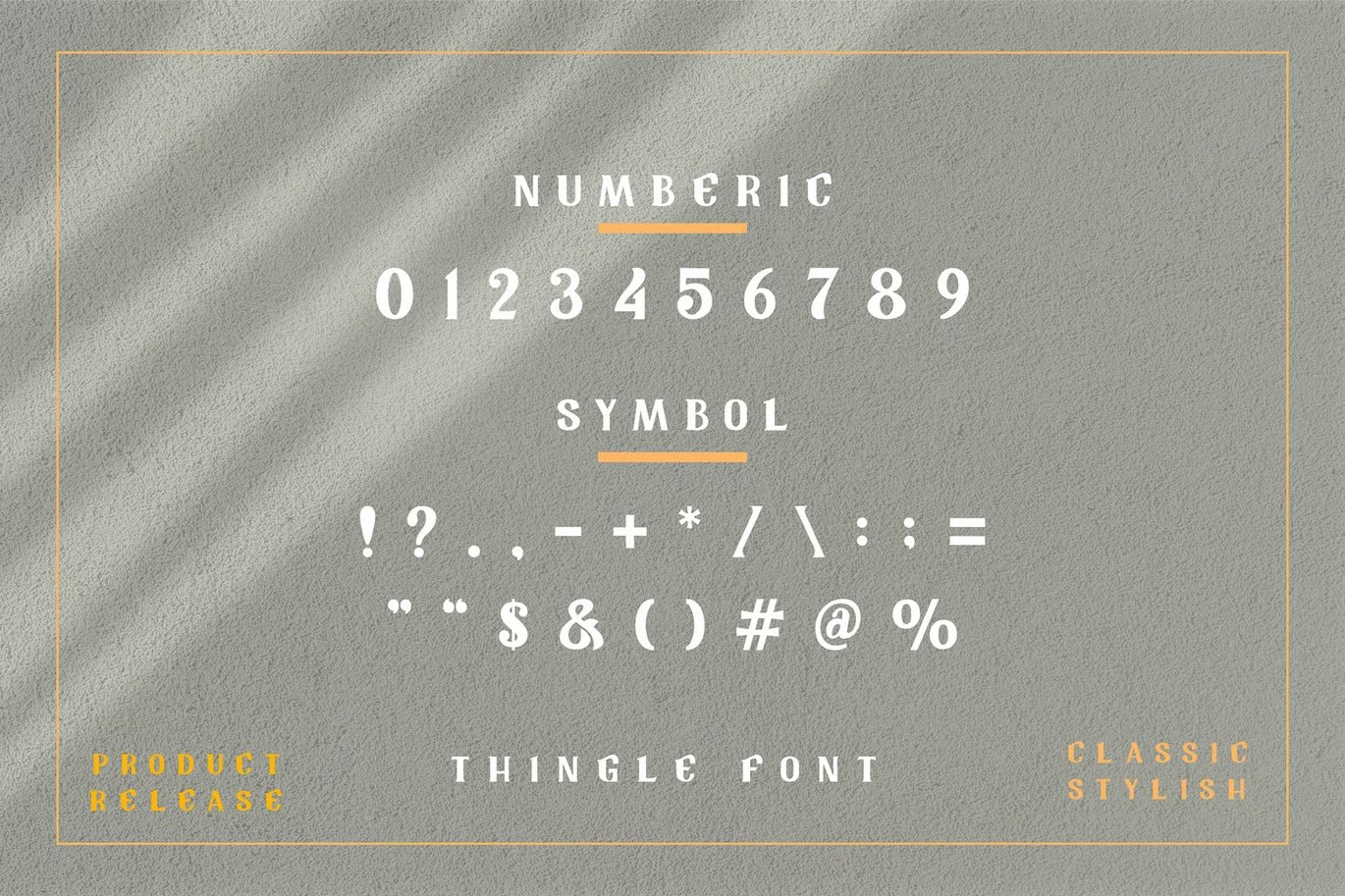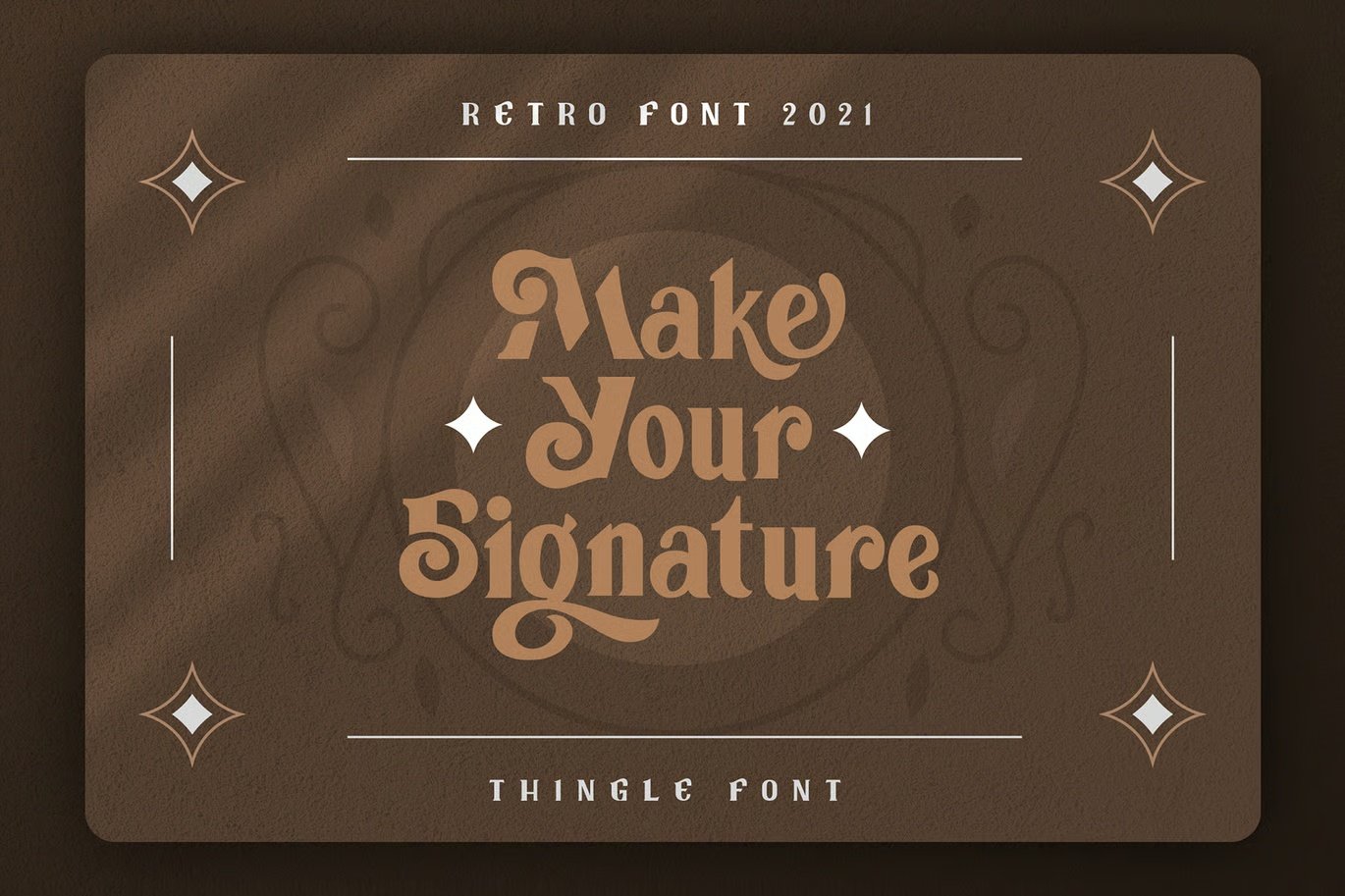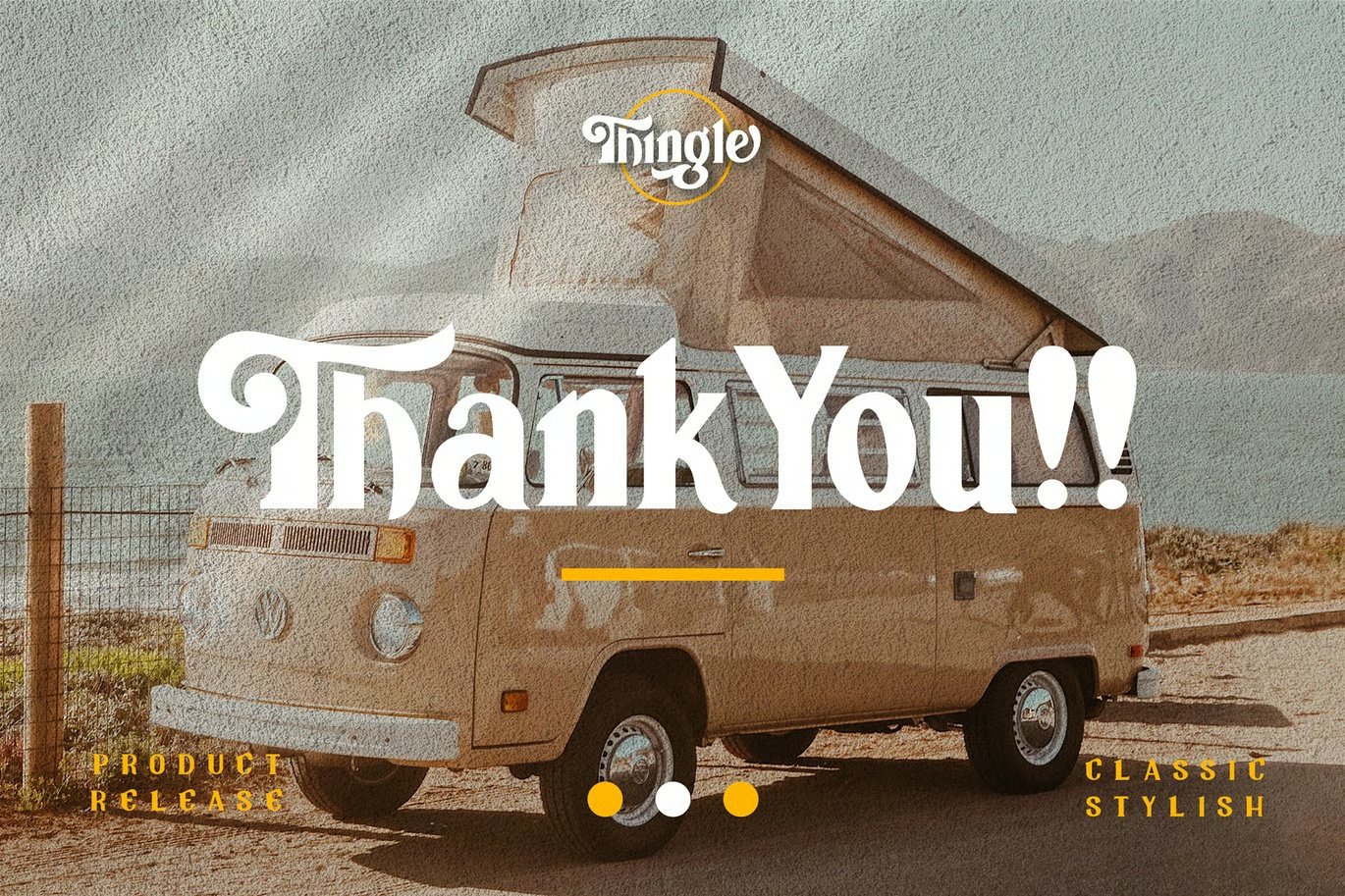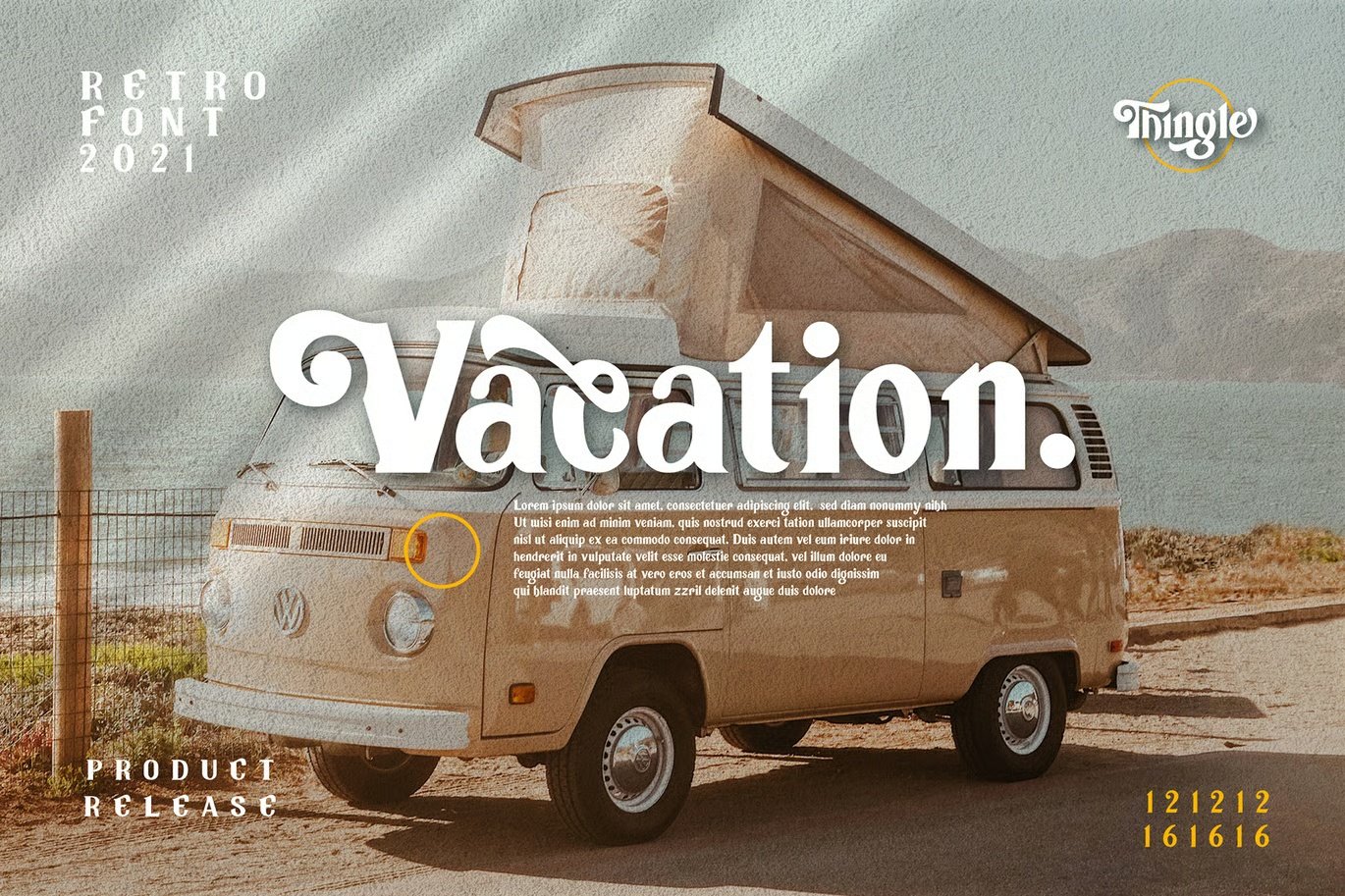
Introducing Tingle Modern Classy Font This all caps font is suitable for posters, magazines, apparels, movie headlines, packaging and more.
- Uppercase
- Lowercase
- Alternative
- Legature